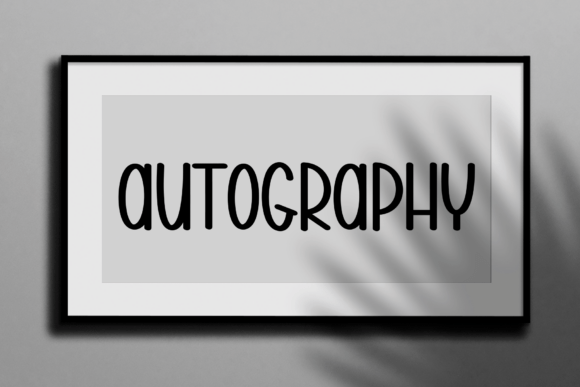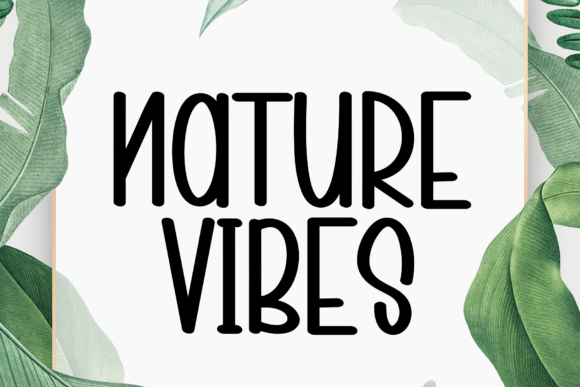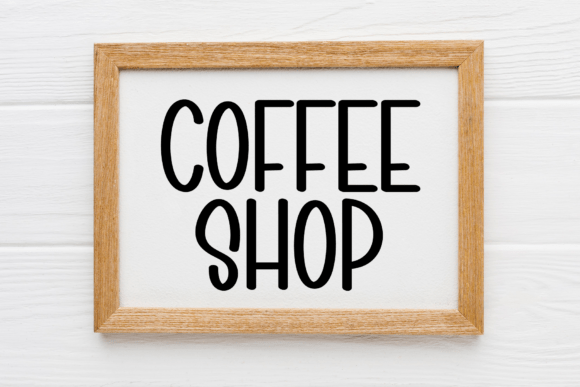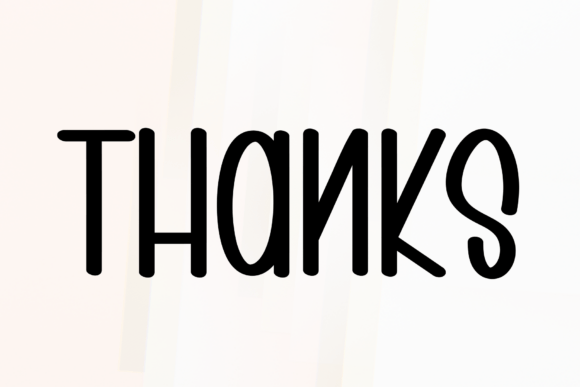
Introduction to Sample Design Font
As a designer, there’s nothing quite like the thrill of bringing a creative project to life. You’ve spent hours brainstorming, sketching, and refining your idea, and finally, it’s time to add the finishing touches. But what if you could give your design an extra boost of personality and charm? That’s where the Sample Design Font comes in – a sweet and beautiful handwritten font that’s sure to make your designs stand out.
With its unique, flowing characters that dance along the baseline, this font is the perfect addition to any design project. Whether you’re working on a logo, brochure, or social media graphic, the Sample Design Font is sure to add a cozy accent that sets your design apart from the rest.
Key Features of Sample Design Font
- High-quality font with a transparent background, ideal for creative projects that require a clean and minimalist design.
- Designed with a unique aesthetic, this font is perfect for adding a touch of sophistication to any design project.
Honest Review: Sample Design Font
As a designer, I’m always on the lookout for high-quality design resources that can elevate my creative projects. Recently, I had the chance to work with the Sample Design Font, and I must say it’s been a game-changer.
- ✨ Clean and modern aesthetic: The font’s sleek design makes it perfect for contemporary projects.
- ✨ High quality: The font is incredibly crisp and clear, even when scaled up or down.
- ✨ Transparent background: This feature allows for seamless integration with any design element.
- ⚠️ Limited font styles: While the font is versatile, it would be great to see more variations and weights added in the future.
- ⚠️ Not suitable for very large or complex projects: The font can become overwhelming when used extensively.
Overall, I’m impressed with the Sample Design Font and would definitely recommend it for any creative project. With its modern aesthetic, high quality, and transparent background, it’s a valuable addition to any designer’s toolkit.
Sample Design Font: A High-Quality Resource for Creative Projects
Common Use Cases for Sample Design Font
This font is ideal for designers who want to create visually appealing graphics, logos, and branding materials. It’s also perfect for use in social media posts, flyers, and brochures.